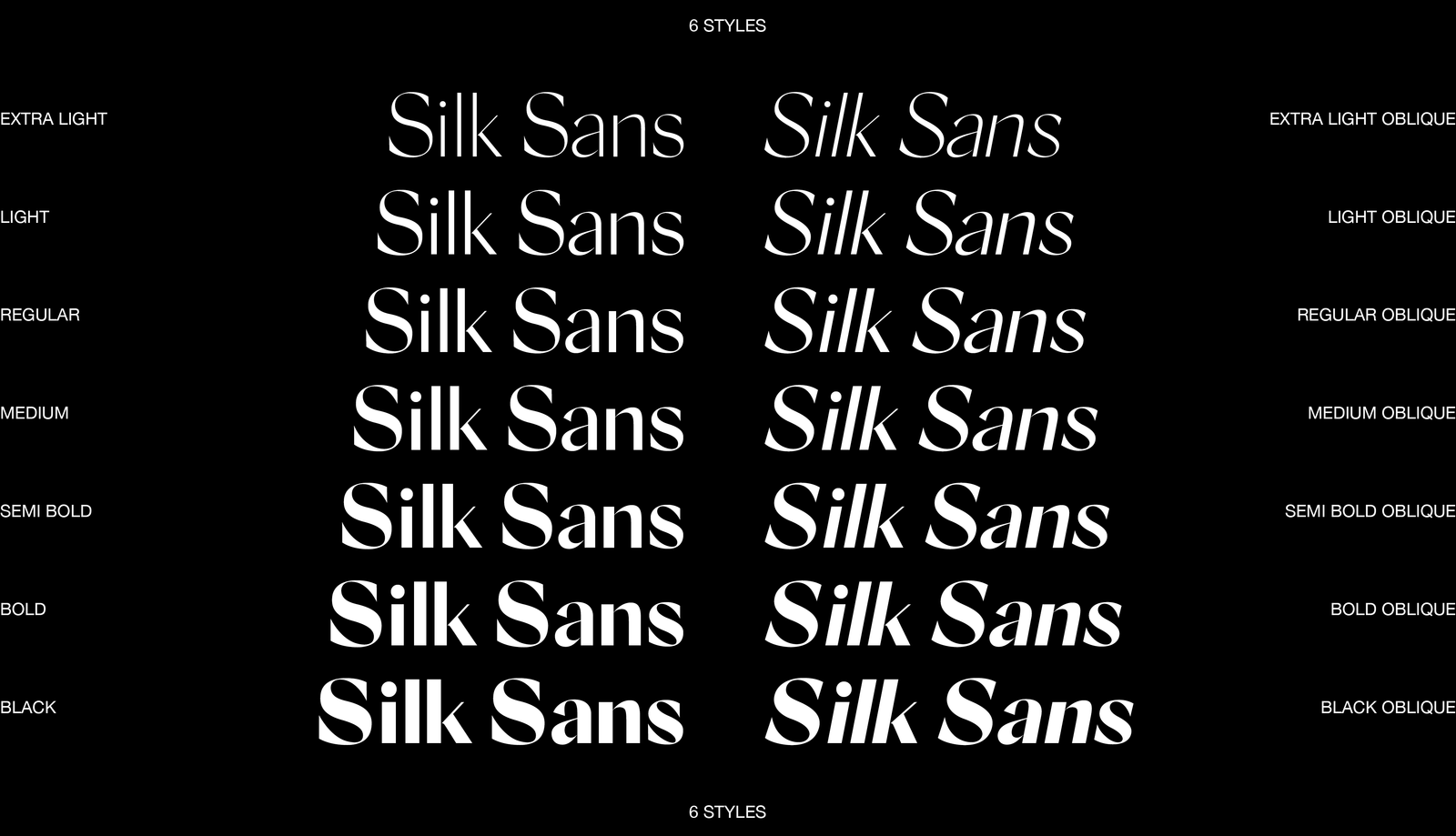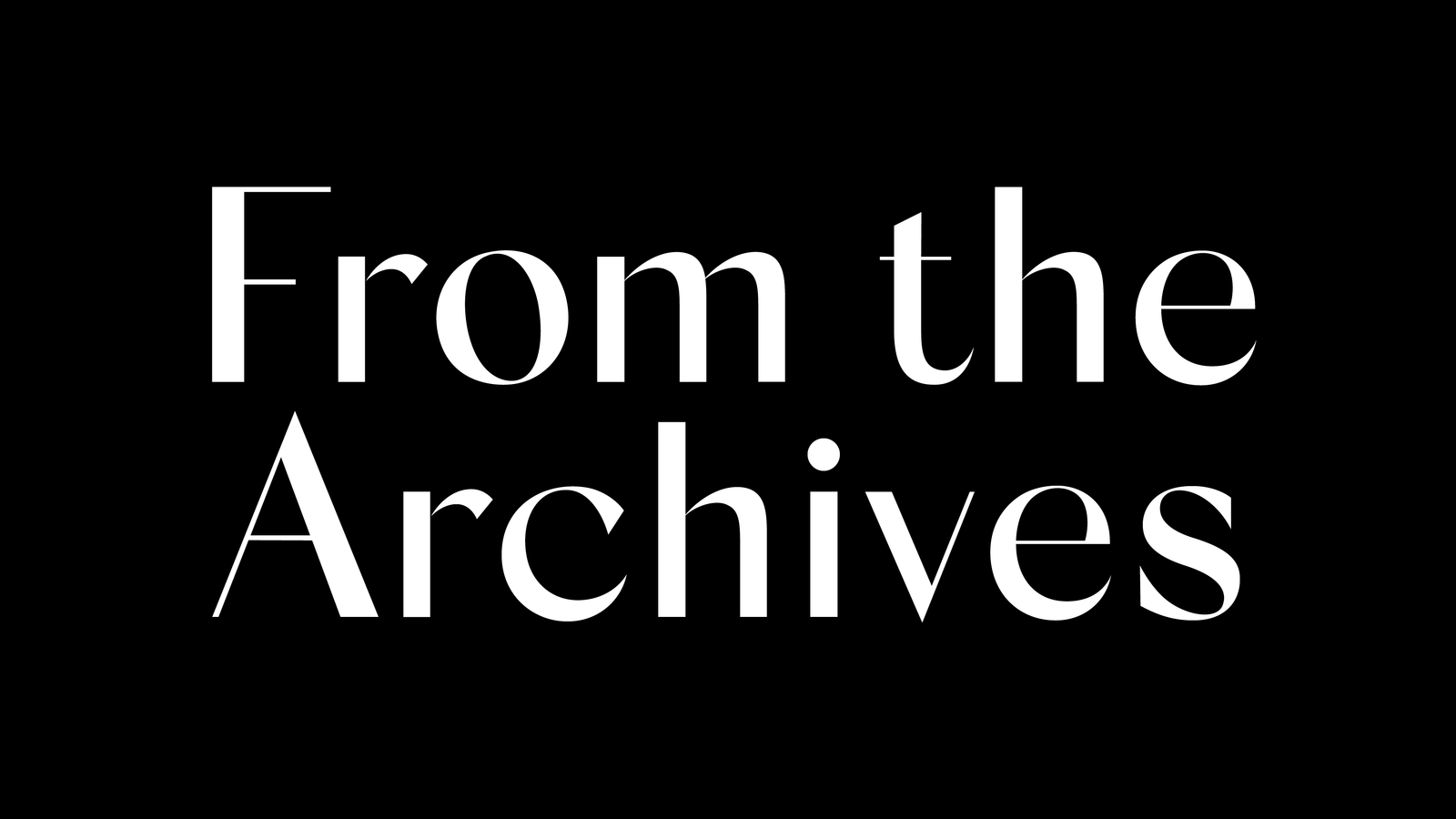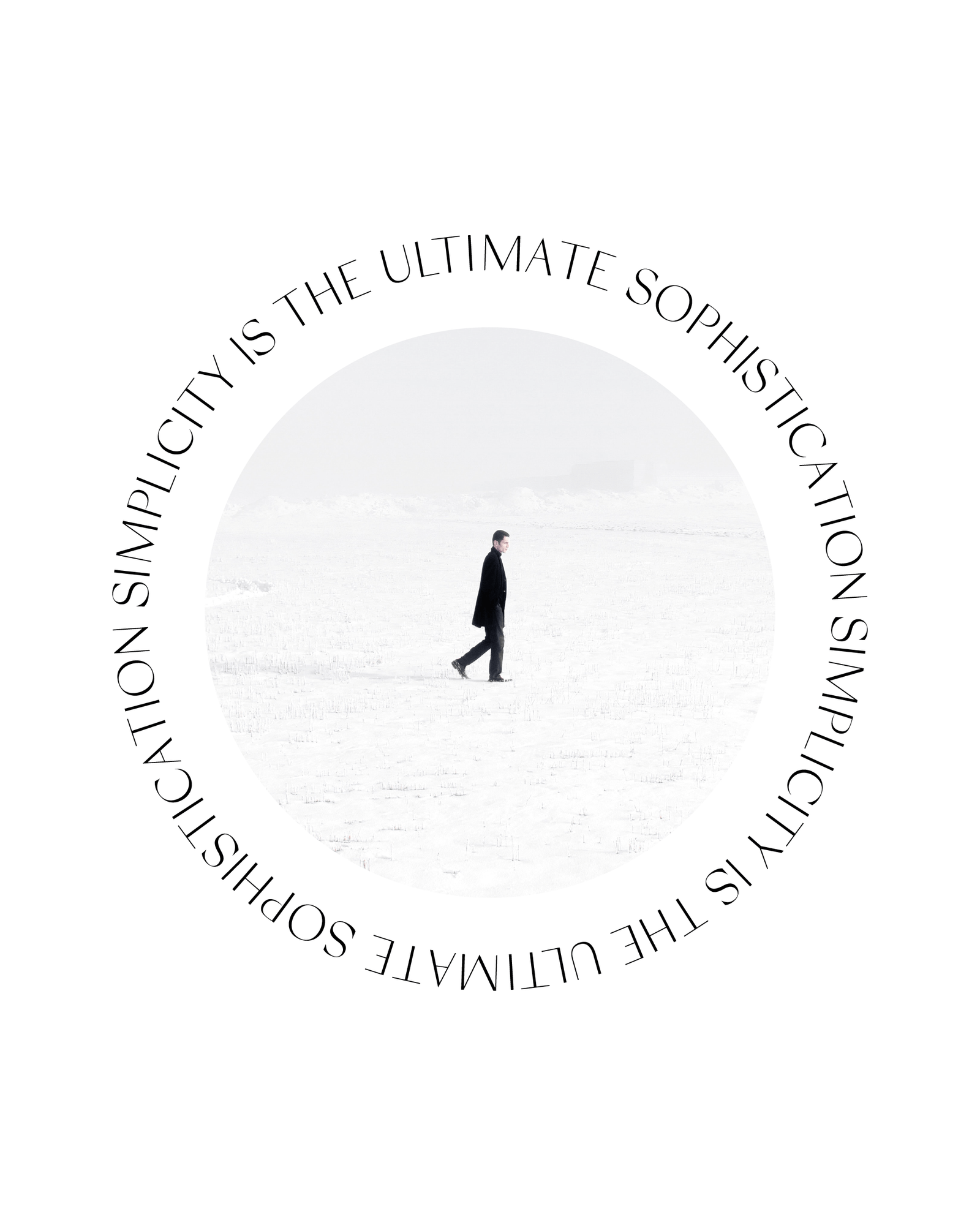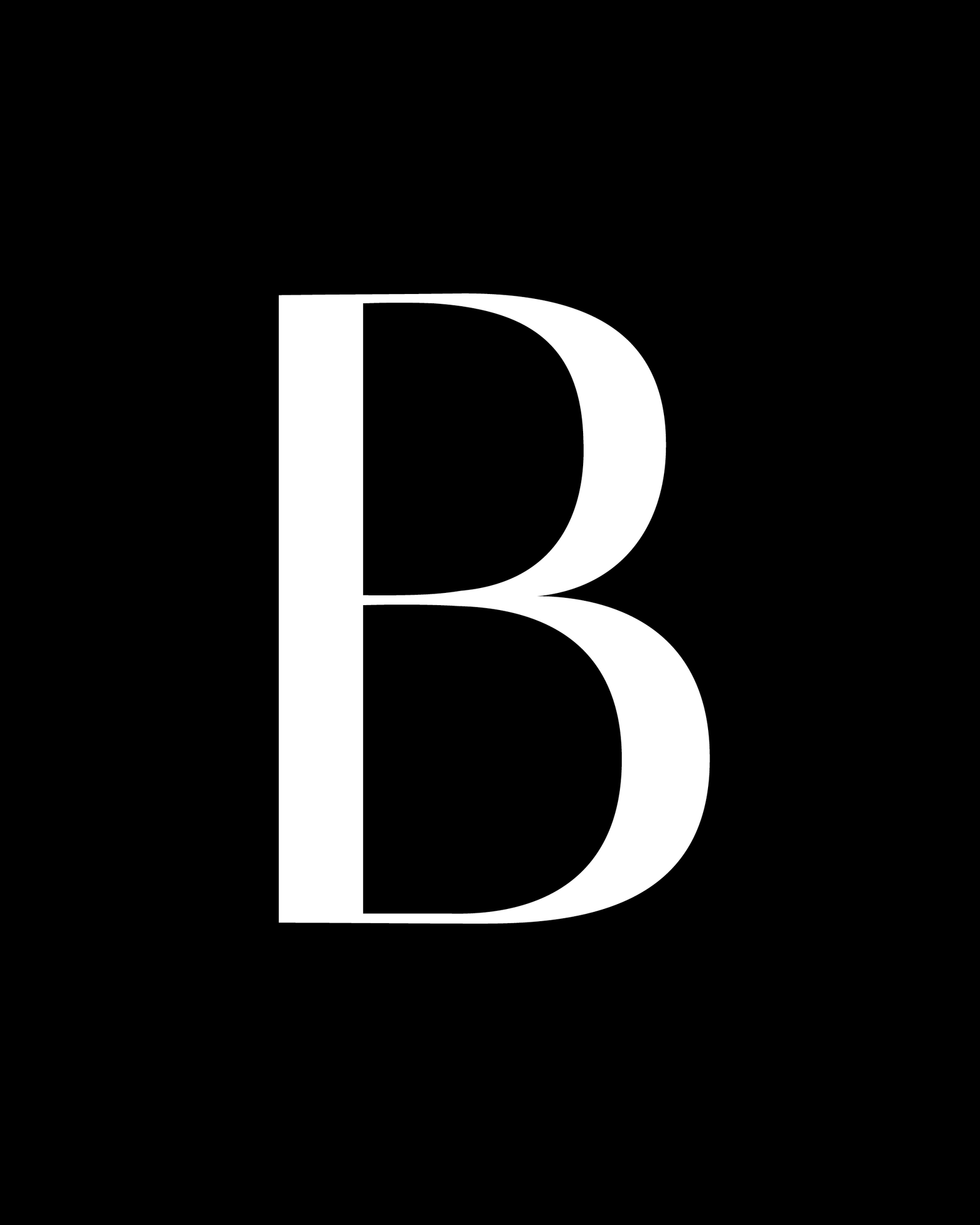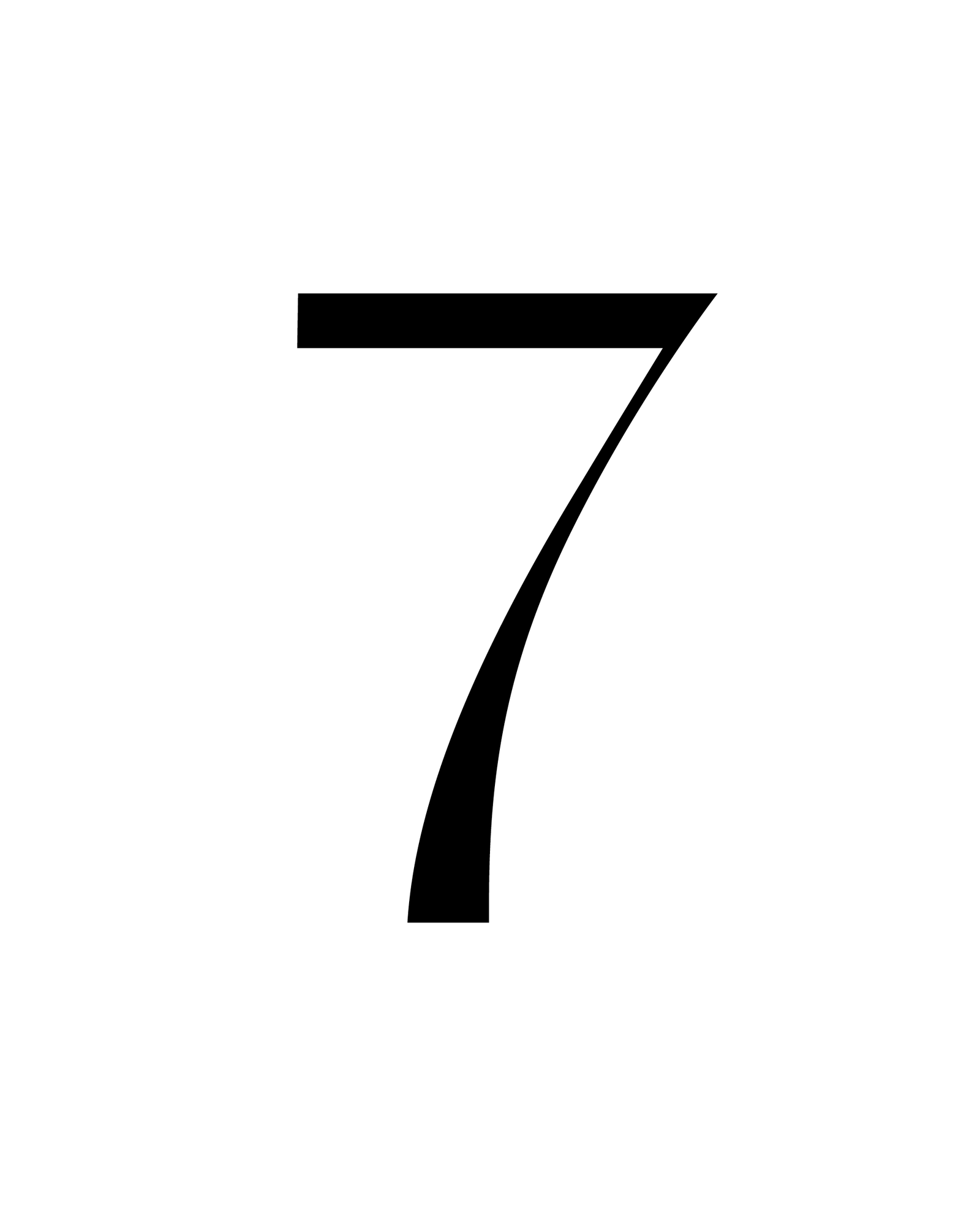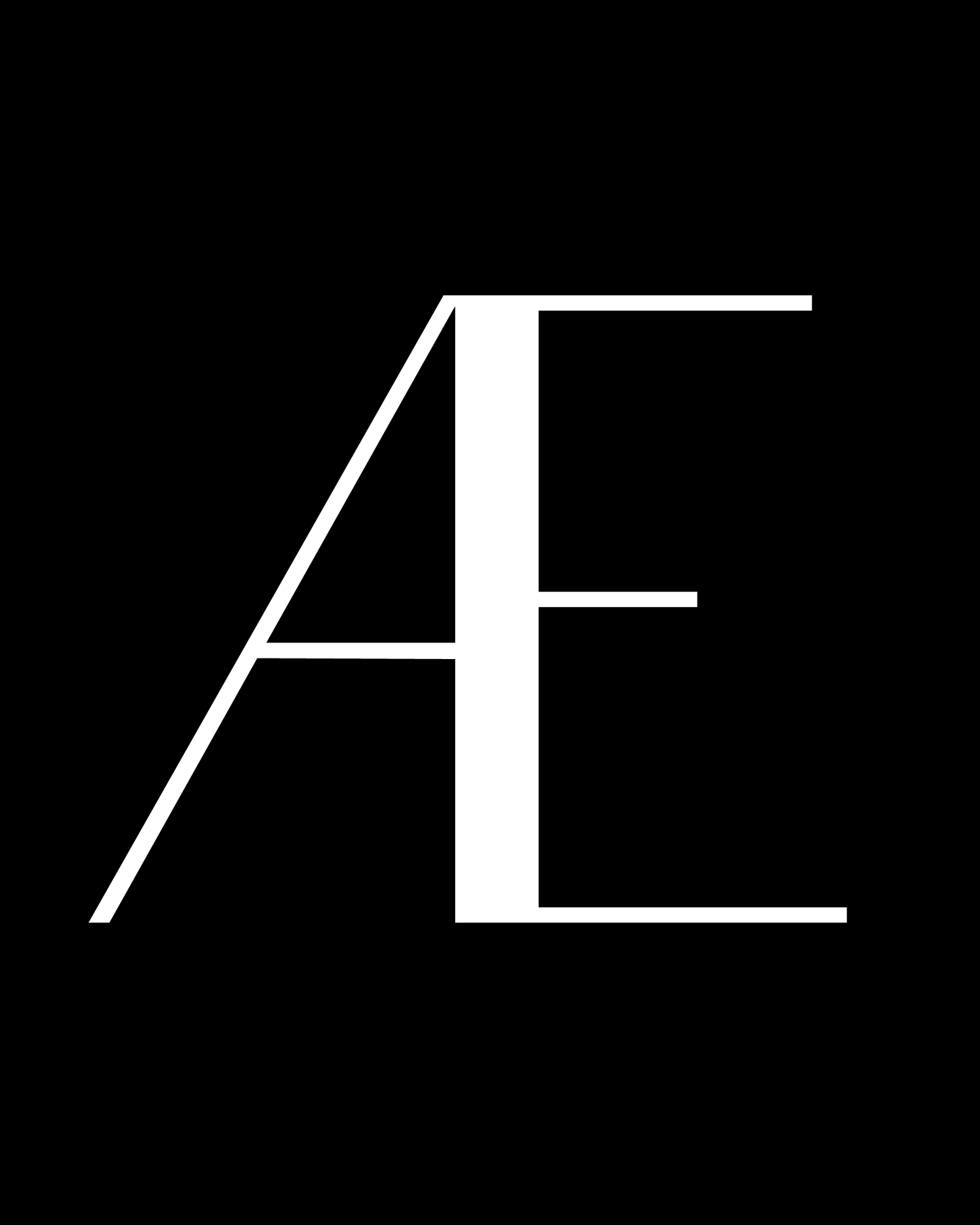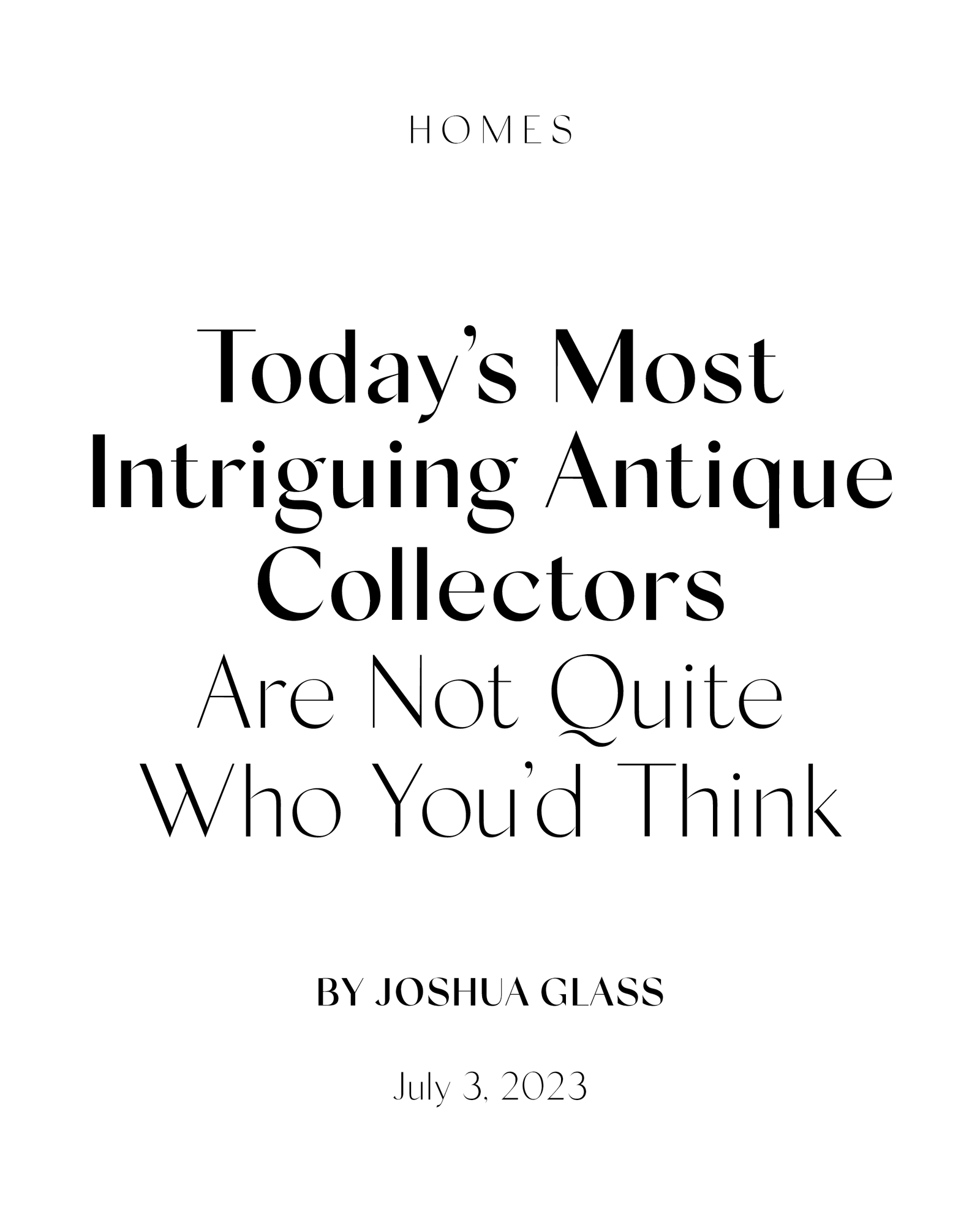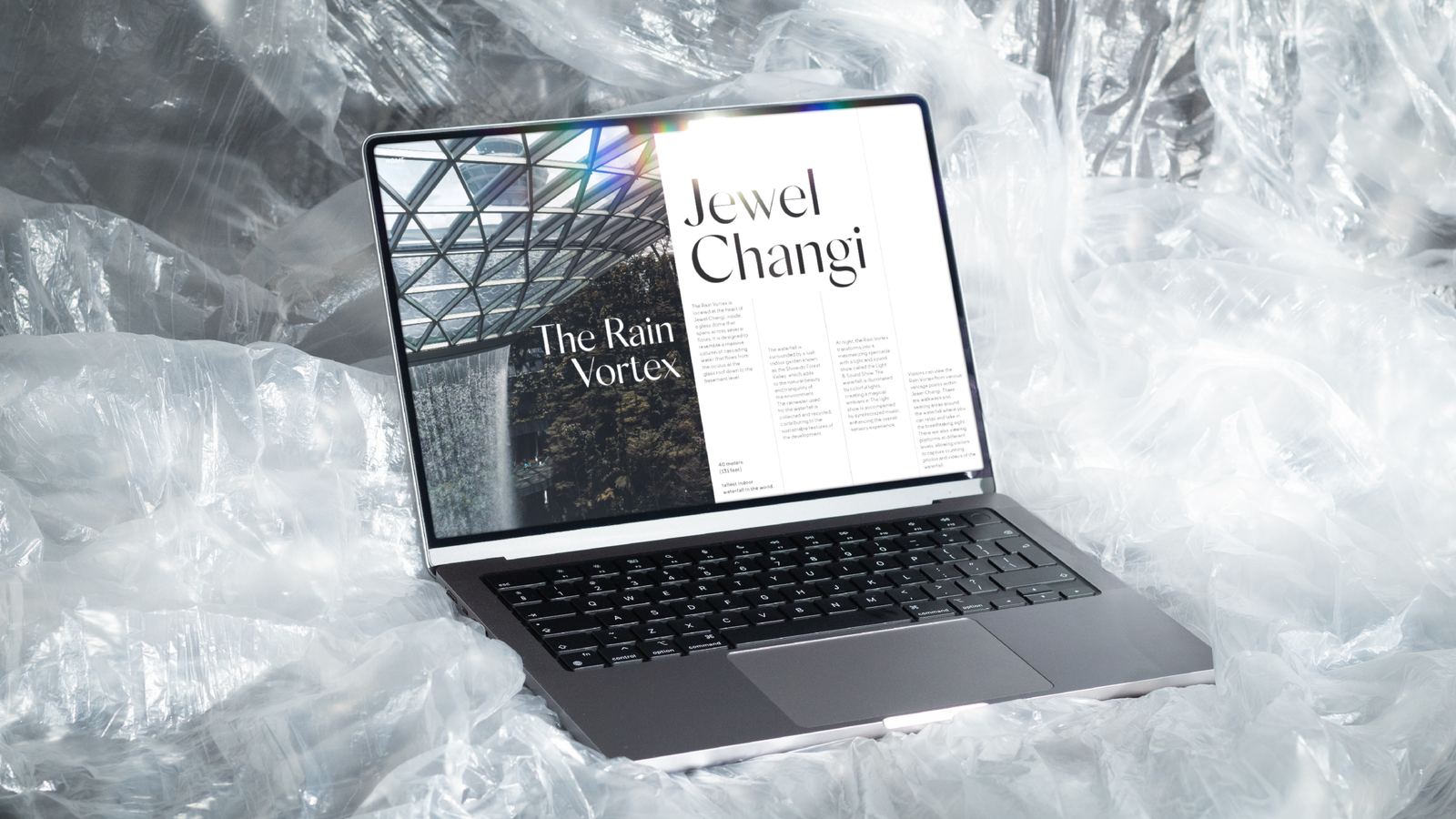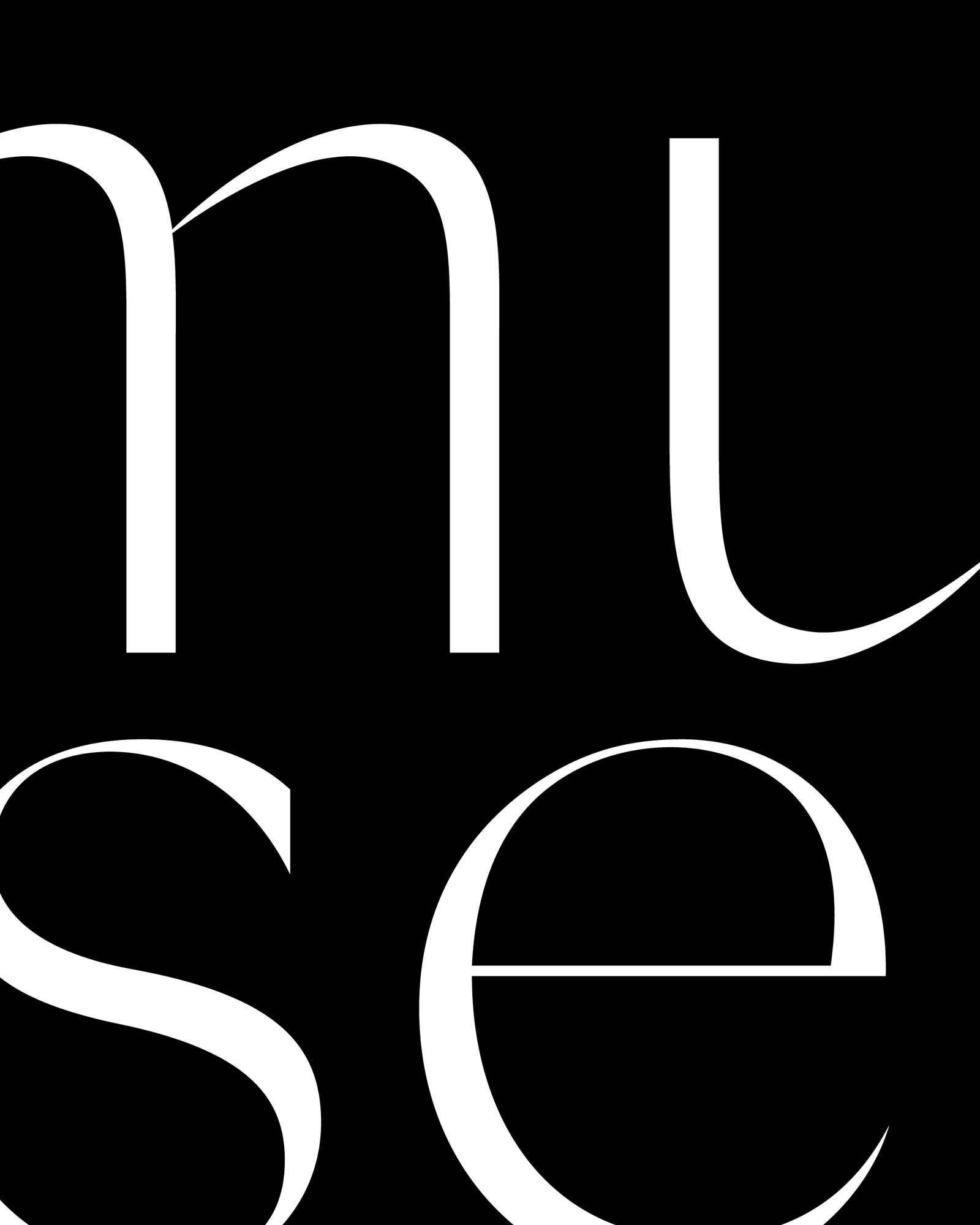
Silk Sans Display is the sans version of the high-contrast typeface Silk Serif. The main feature of the font family is the disconnection between the bowls and the stems. However, the bowl is very close to the stem, creating the illusion of connection. Silk is delicate and legible — but above all, it is sophisticated. Silk Sans Display is available in 7 weights, from Extra Light to Black, and supports Western, Central and South-Eastern European languages.